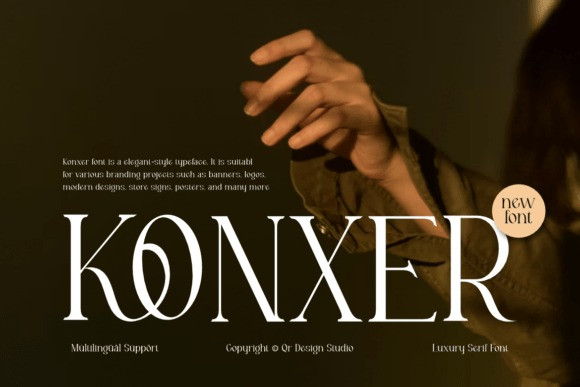
Konxer Font
Designer: qrdesignstd
Konxer Font a breathtaking display serif typeface that captures an “avant-garde-and-aristocratic” soul. This font features striking, high-contrast uppercase letterforms uniquely characterized by their razor-thin horizontal bars, deep fluid curves, and an exquisite interlocking script loop between the letters “K” and “O” that bridges the gap between classic editorial layout romance and modern couture branding. With its medium structural weight, cinematic styling, and sharp terminals, Konxer is the premier choice for independent jewelry identities, boutique interior design studio logos, premium fragrance packaging, and high-impact “sleek-and-sophisticated” social media titles.